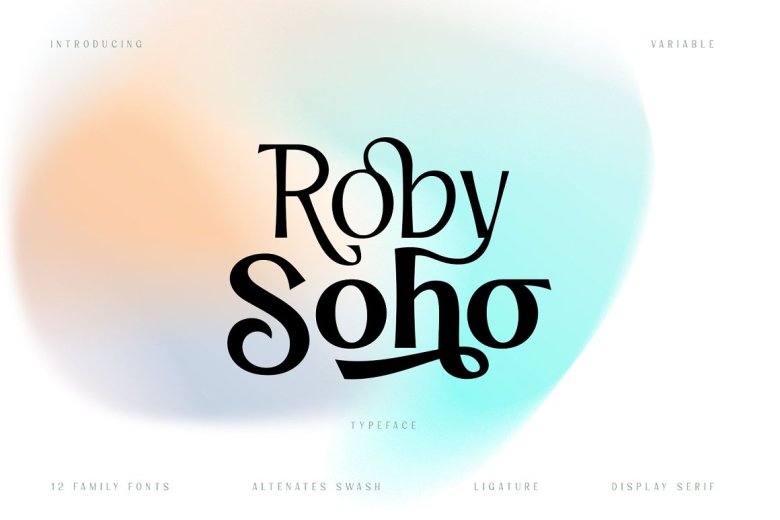
Roby Soho Font
Roby Soho Font is a sans serif family type inspired by 80s reality show. It has 12 fonts, multilingual supports with swash and alternate. This is a versatile font that works great in both small and large sizes, for body text or header text.
The Roby Soho font is also supported with a variety of families from thin version to Black version. It is suitable for editorial design projects, logo designs, branding, product packaging, magazine covers, Instagram posts, social media text stories, and so on.